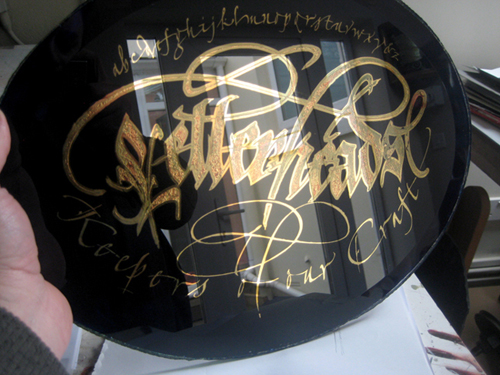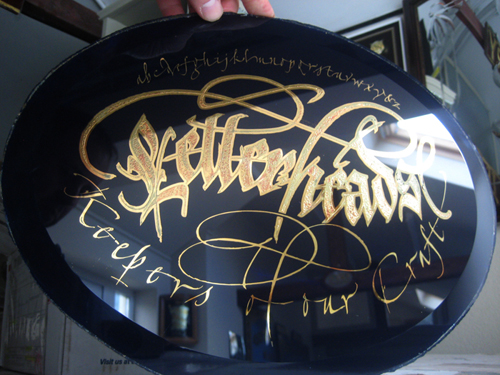
Thought I would share this with you guy's . You may never need this or want to use it but its worth knowing especially for branding glass jugs and glass trophies, wine glasses etc....I tried this technique a few years back, ended up opening the kiln to early and snaping the glass. I had some better success over the weekend on several pieces which I used a higher percentage of gold concentrate. 12% gold
This glass panel was stripped of its mirror finish and then I acid etched the text.
I then applied a mask and coated the letters including brightlines with Bright Kiln Gold (brushed) ,I let it set up for about 2 hours striped the mask and let it dry over night. Next day placed it in the kiln face up and took the heat up to 620dgr held it there for 15 minutes. On some of the letters towards the end it started to burn the gold but overall with some more tests and times I think it will work very well for small projects .Cost is an issue and against any Angel Gilding supplies this falls flat on it's face but if you have a kiln and would like to try it out I reccomend giving it a go as the finish is an excellent shine and deep gold 25crt finish.
Kiln Gold mirror finish experiment
Man that is beyond awesome! I am sooooo lucky to be a member here you are definaly a master of your craft!
I used to use a gold for firing on to tile and ceramics call Luster.I wonder if it's the same thing.